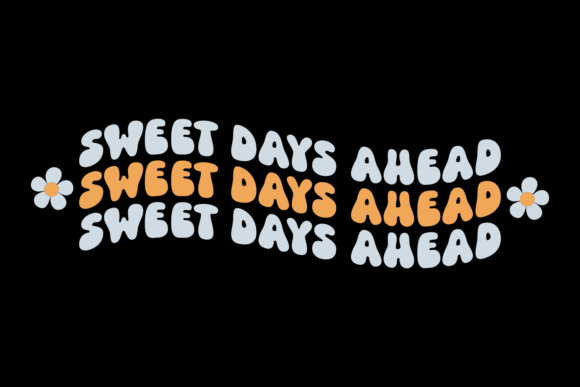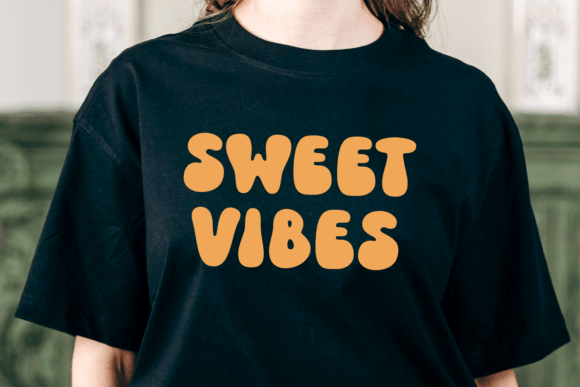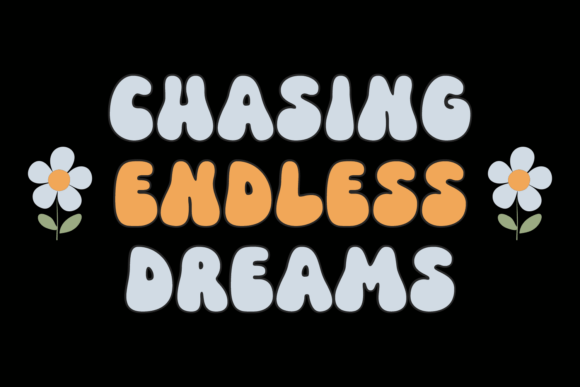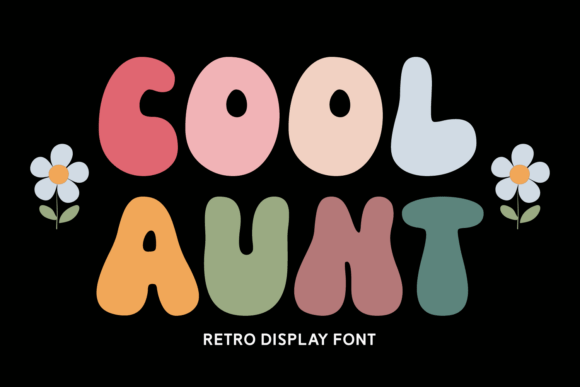
Introduction to Cool Aunt Font
Presenting Cool Aunt is a cute and friendly display font that featuring unique, memorable letterforms.
Its playful nature shines through when uppercase and lowercase characters are combined, delivering a dynamic visual effect Cool Aunt offers flexibility and creative freedom.
Key Features of Cool Aunt Font
Why Choose Cool Aunt Font?